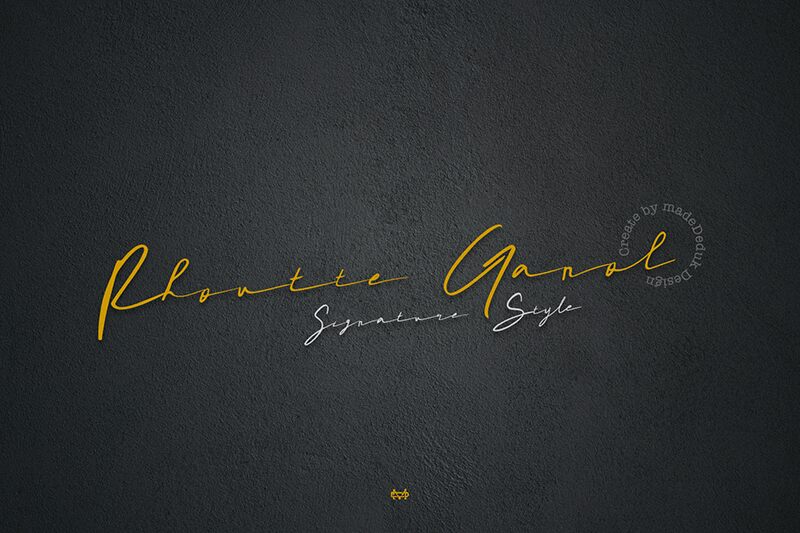
Rhoutte Ganol Demo Italic
Rhoutte Ganol Italic font by madeDeduk is a free handwritten font that communicates harmony and natural beauty. Its elegant letters feature gentle curves and small loops inspired by basic shapes, inviting eyes to slowly enjoy every single detail. The authentic handwritten look gives the font uniqueness that evokes an emotional human connection.
Use the calligraphic style of Rhoutte Ganol Italic in your fashion magazines, wedding invitations, branding projects, stationery designs, advertisements, greeting cards, book covers, posters, quotes etc. For legibility concerns the italic typeface is more suitable for short text as well as headlines rather than long body paragraphs.